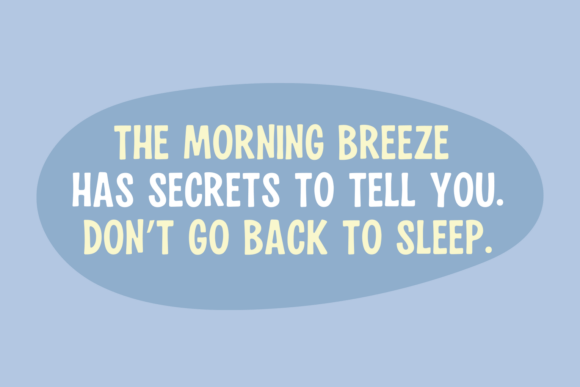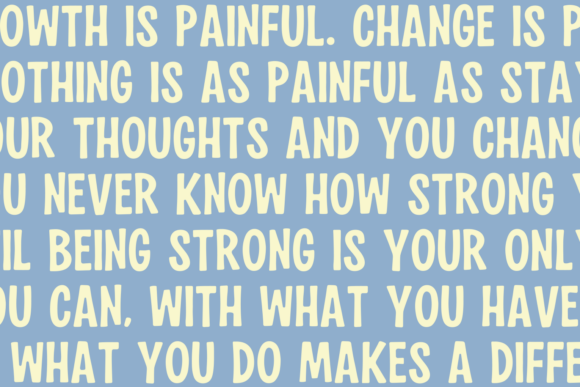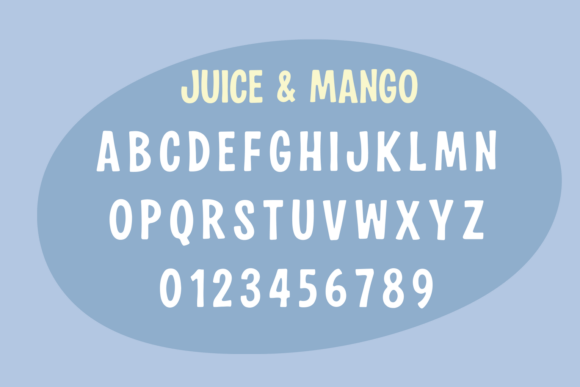
Introduction to Juice & Mango Font
Juice & Mango is a display font exuding lighthearted charm in every flourish of its handwritten style.
Its letters, resembling a hand-drawn work of art, showcase an irregular yet gentle silhouette, simulating an exhilarating waft of fresh summer breeze Juice & Mangoโs lively demeanour becomes an asset for sunshine-filled projects, captivating culinary presentations, childrenโs books, irresistible invitations, and personal branding efforts that seek to integrate a dash of playful warmth and engaging appeal.
Key Features of Juice & Mango Font